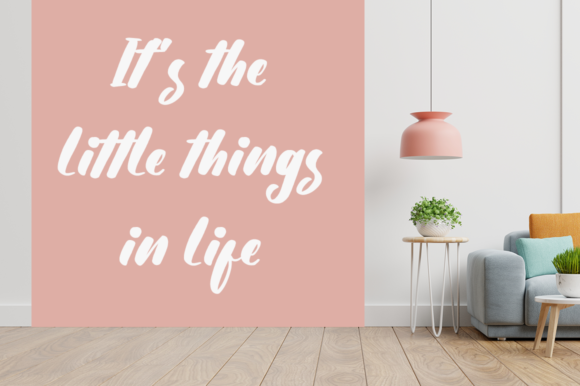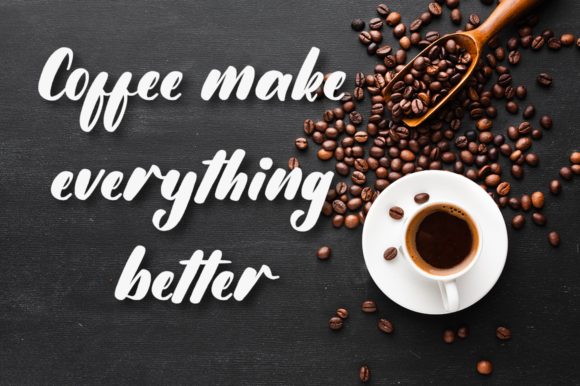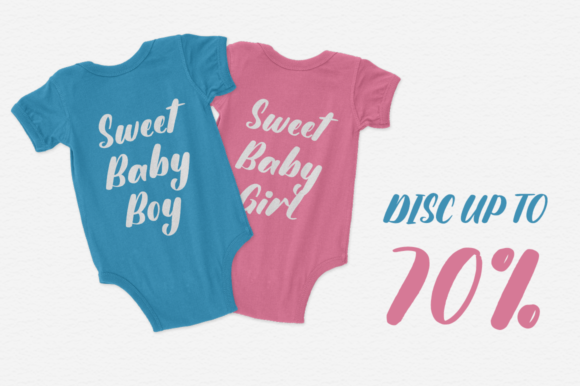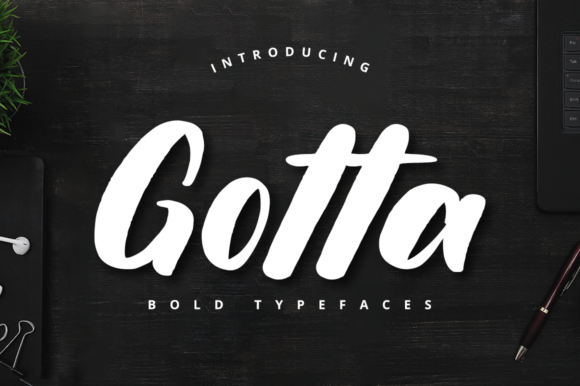
Introduction to Gotta Font
Gotta is a cute and quirky handwritten font.
It will add an incredibly joyful touch to your designs Add this beautiful font to each of your creative ideas and notice how it makes them stand out.
Key Features of Gotta Font
Why Choose Gotta Font?